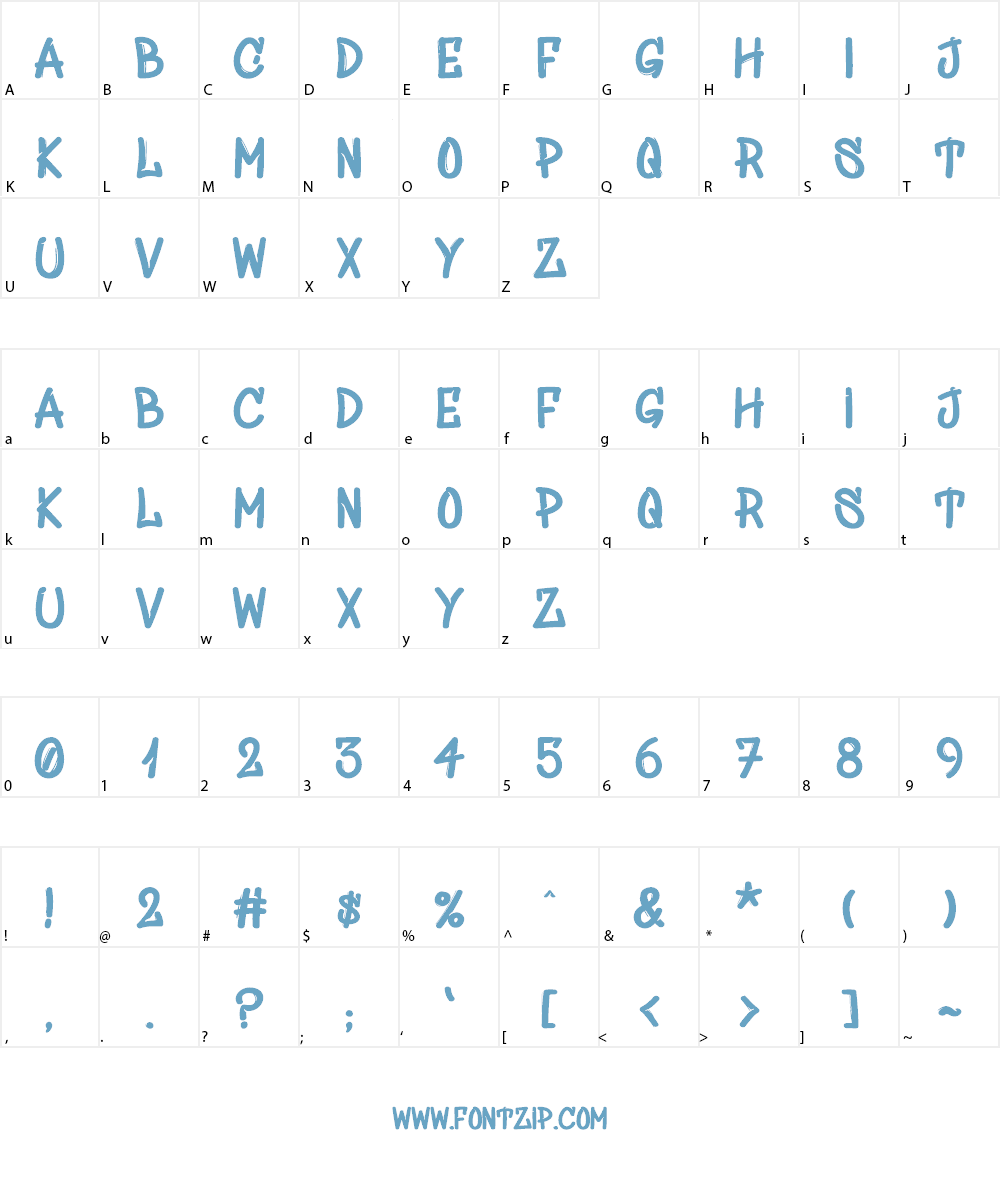
Sivar is a street tag urban style inspired display font that is perfect for short words all type design. I’ll appreciate your support if possible, even a cup of coffee goes a long way, Thanks!